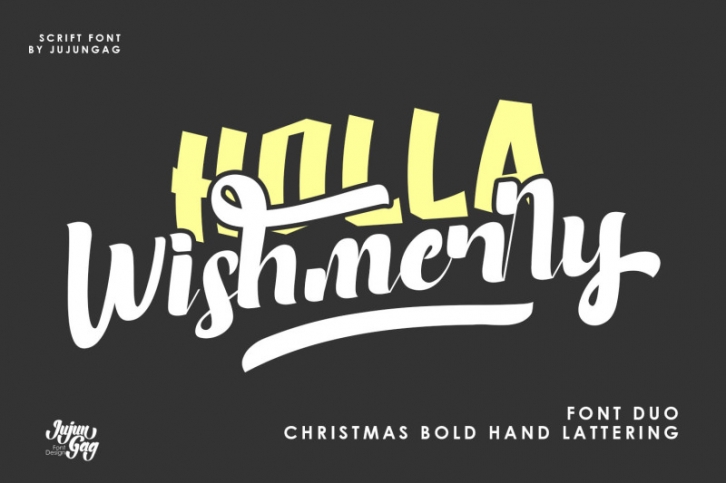
Holla Wishmerry Font Duo Download
Holla Wishmerry Font Duo Handwritten - it'a a modern font duo
This font is handmade and has two powerful character. The font is work specialty is good for product design like a Template/mockup, Post, T-shirt, Quote, event or you can use for your logo design, typography design, etc. This product is inspirational for your creative design.